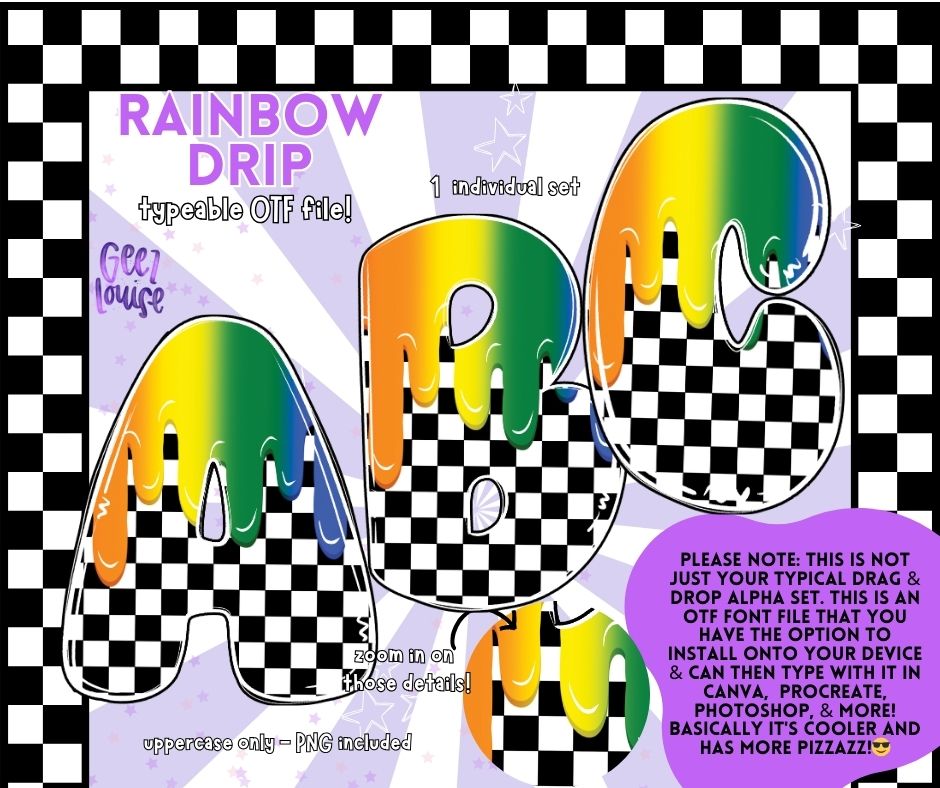
Rainbow Drip - Dripping Checkerboard OTF Font + PNG Alpha Set
Turn up the bold with our Rainbow Drip OTF Font! 🌈🖤 This edgy dripping rainbow checkerboard alphabet gives you a punch of color mixed with classic black-and-white checks — perfect for sublimation designs, statement tees, Pride merch, and bold digital projects.
✔️ Uppercase letters included for high-impact designs